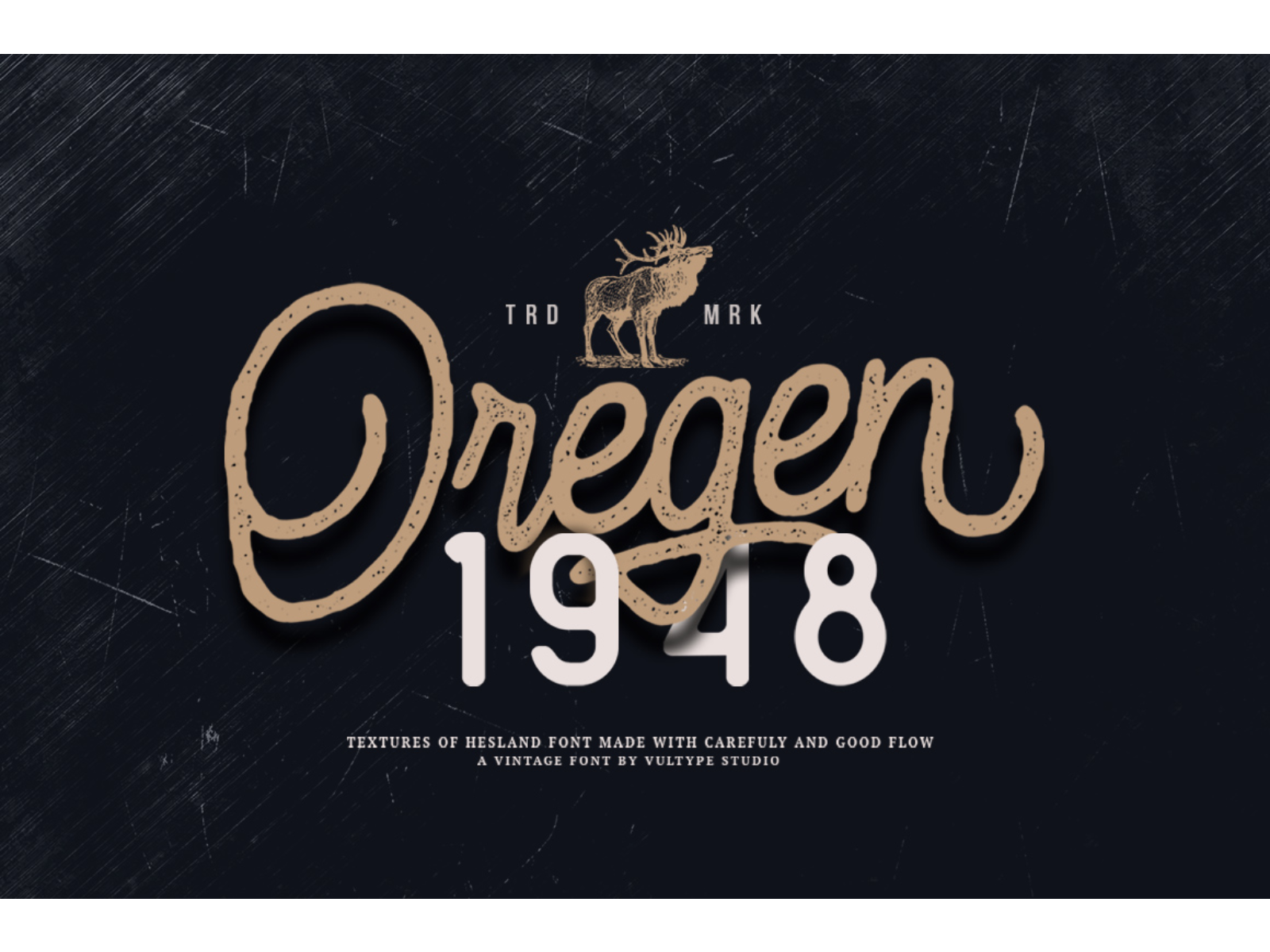
Monoline Script Font
introducing Hesland Font. Hesland Vintage Font Duo inspired by the vintage old american which has two styles, Clean and Stamped. come with script and sans serif this font. you can download at @Creative Market